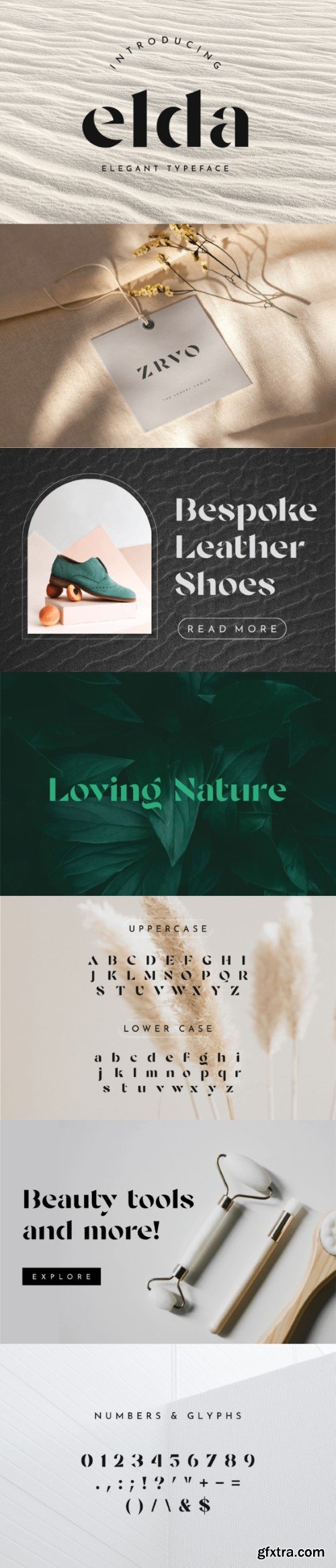
埃尔达字体
Elda is an elegant stencil font, it has a unique yet minimalist appearance. Elda stencil font will make your design look unique and luxurious and add a little bit of boldness to your design as well. This luxury stencil display font is a great choice for branding, packaging design, posters, social media posts, headers, and so on.